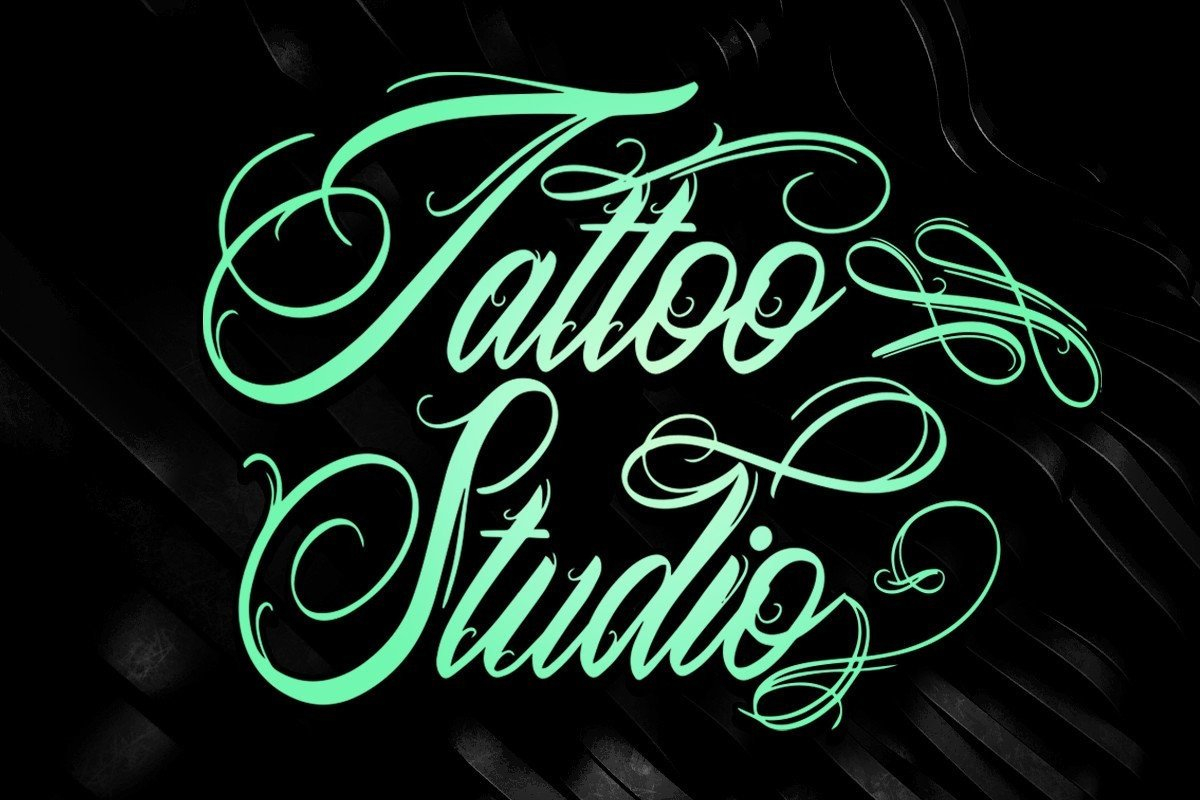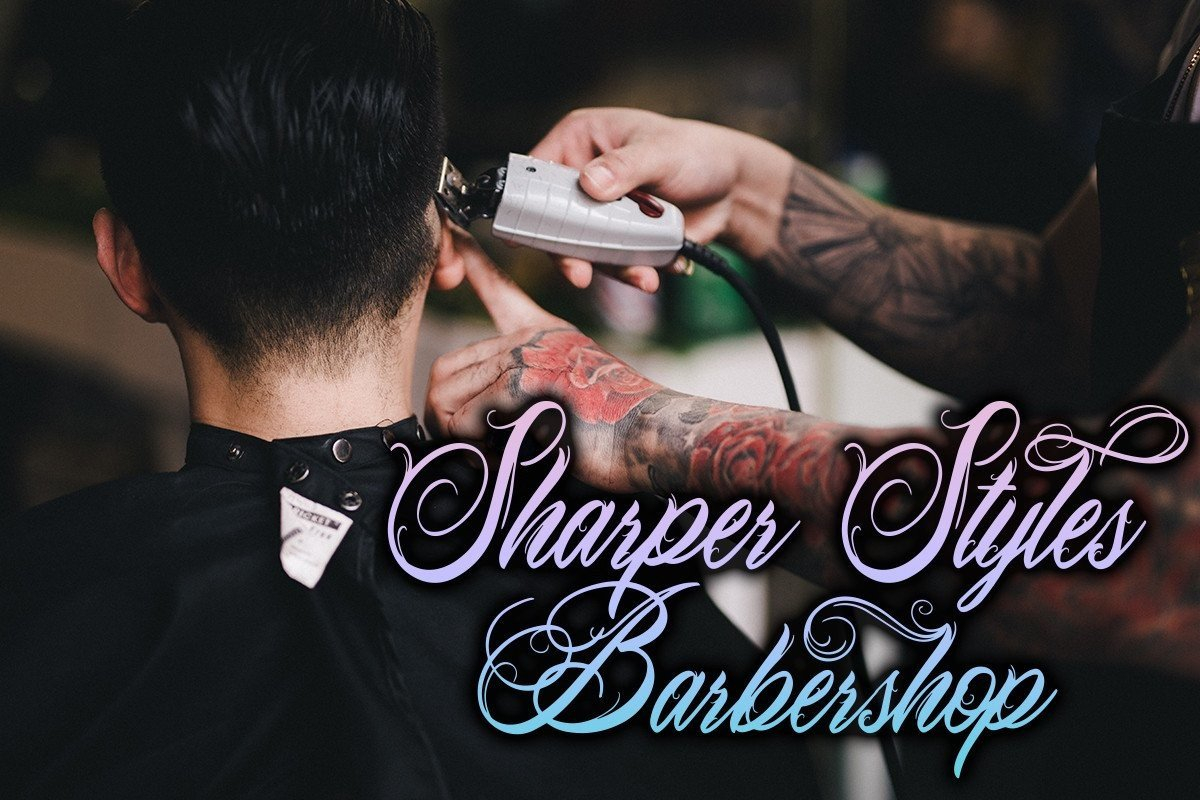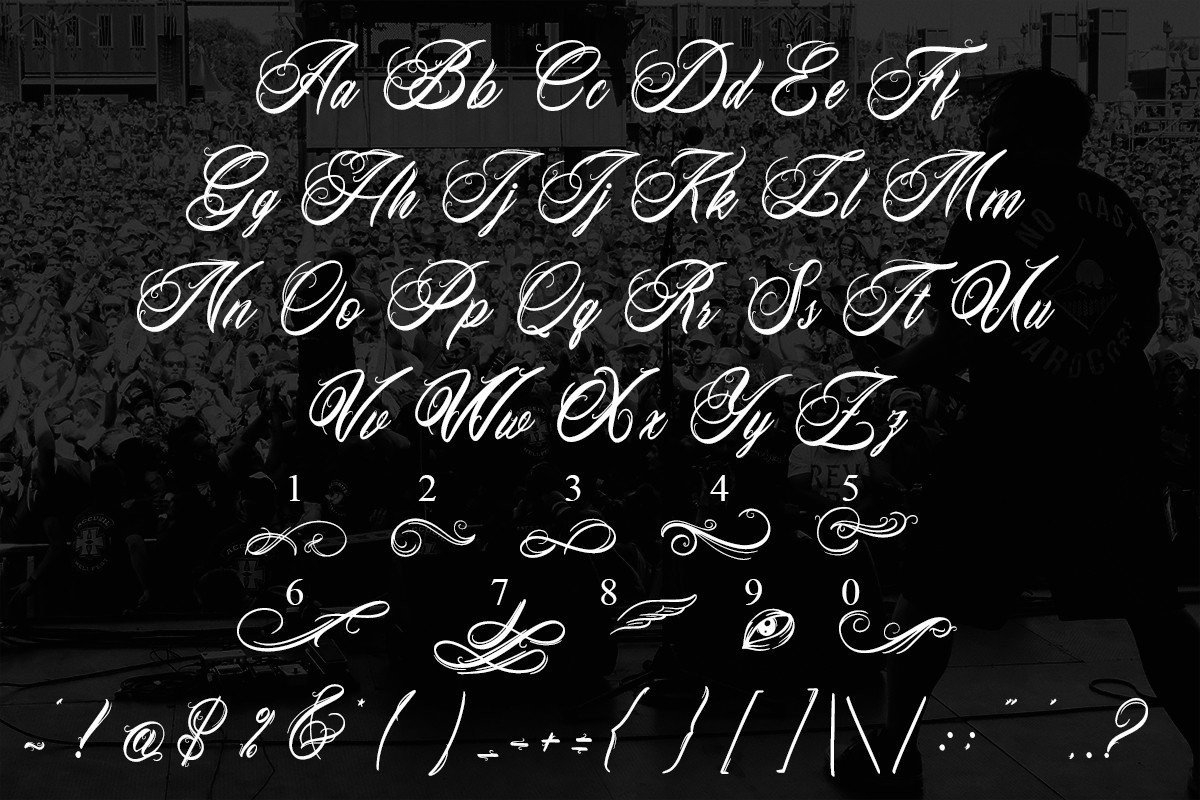
About Tattoo Studio Font
Tattoo studio is a blackletter script font with a new and fresh style.
This font is made and designed in detail with the neatness of kerning and the subtlety of the shape of the font.
This font is specifically for tattoo artists, tattoo studios, tattoo artists, metal t-shirt designs, hardcore, punk and others.